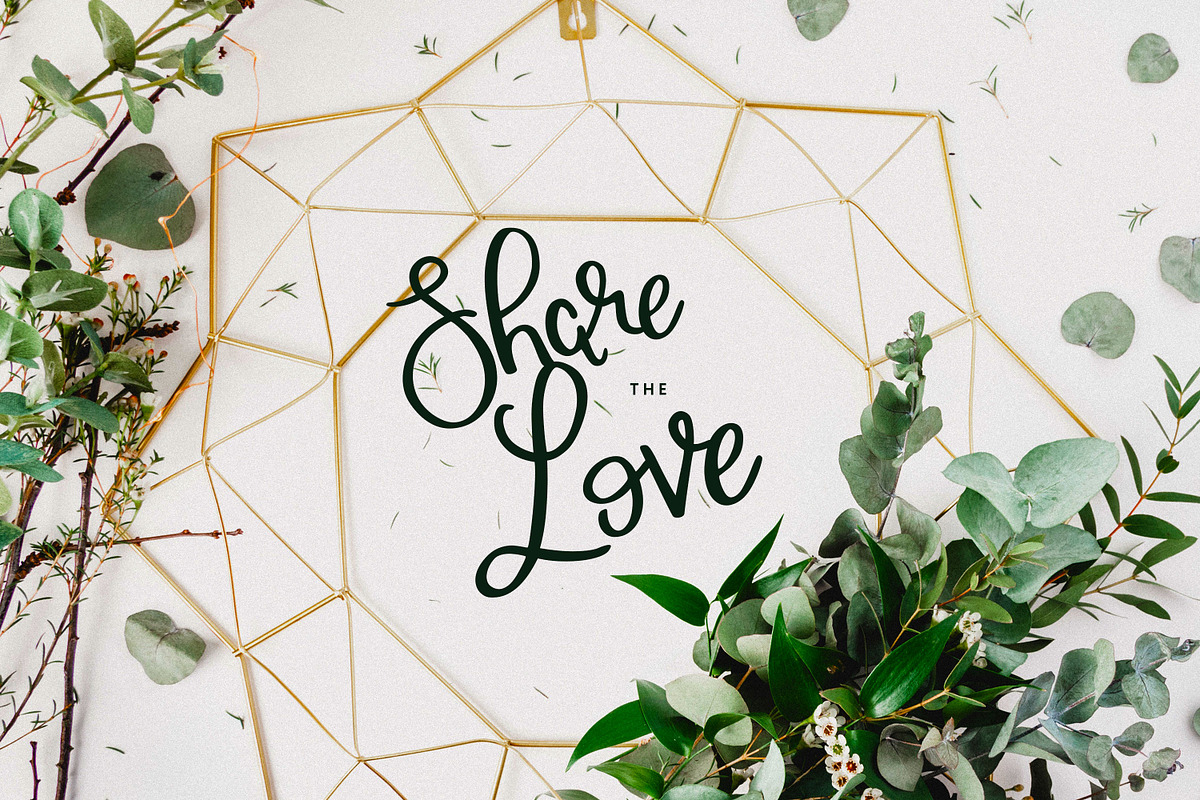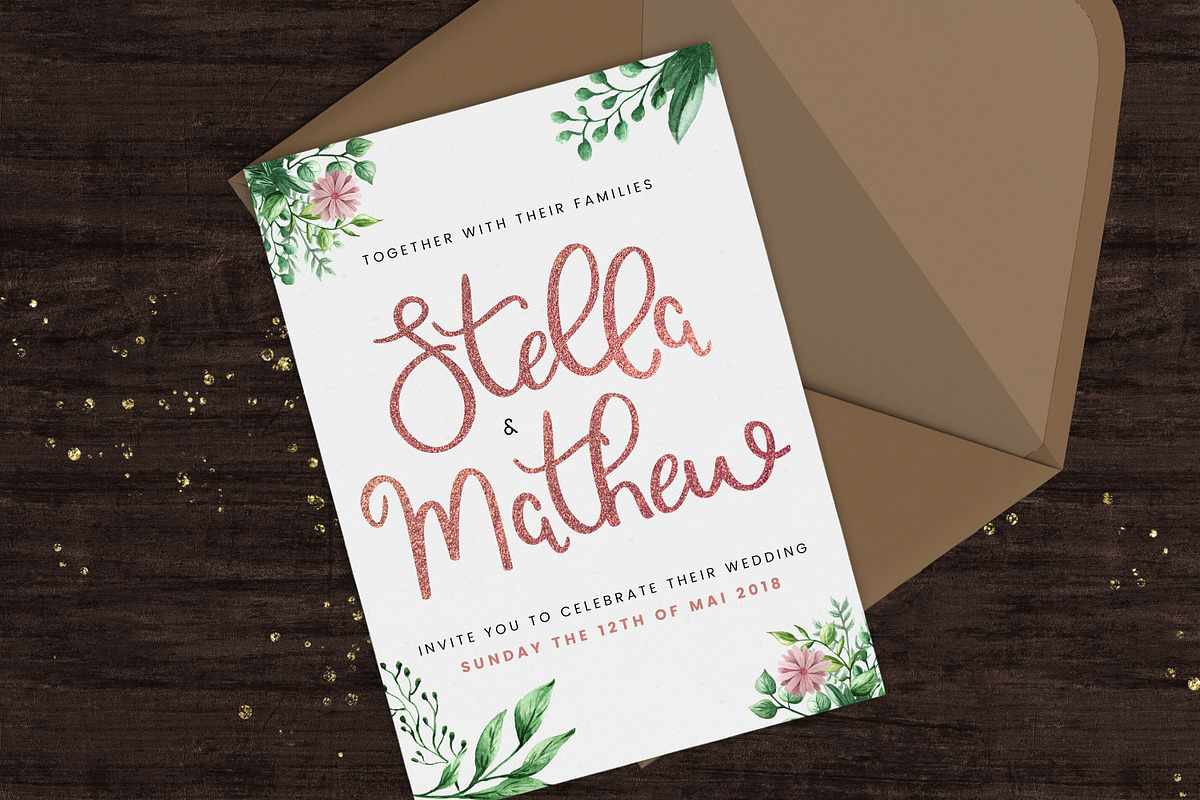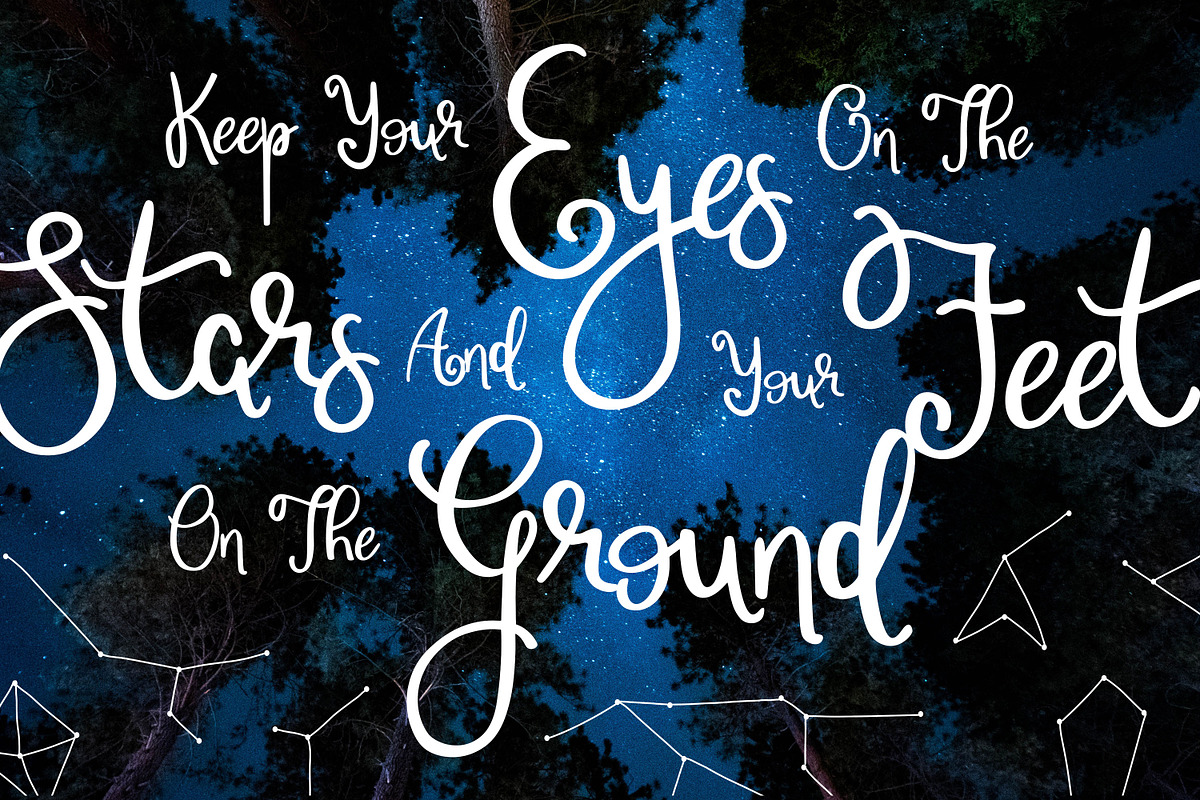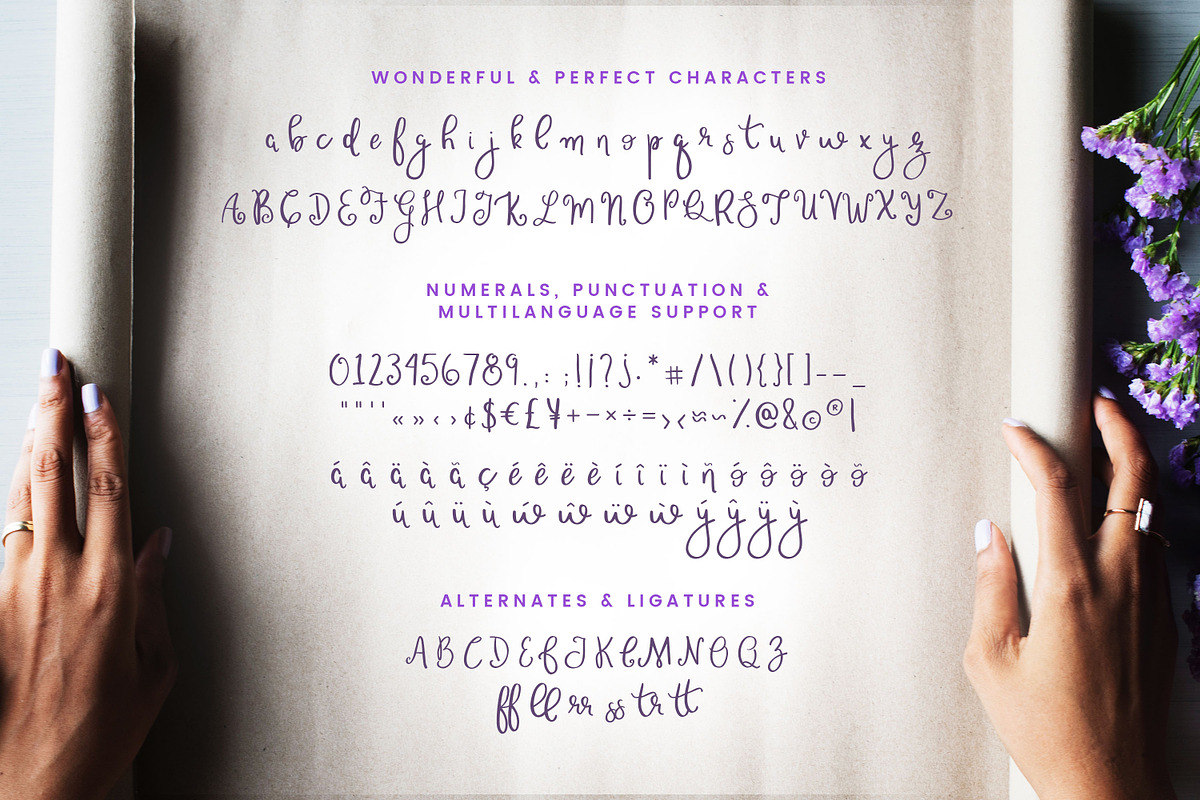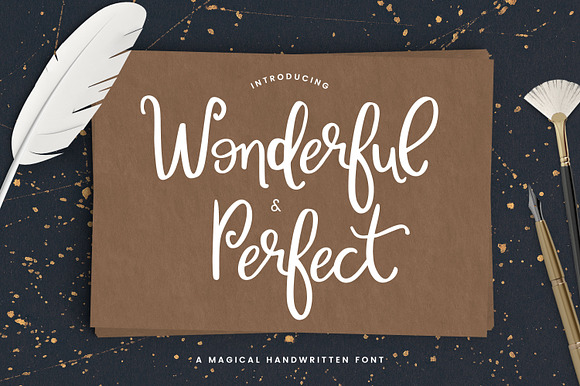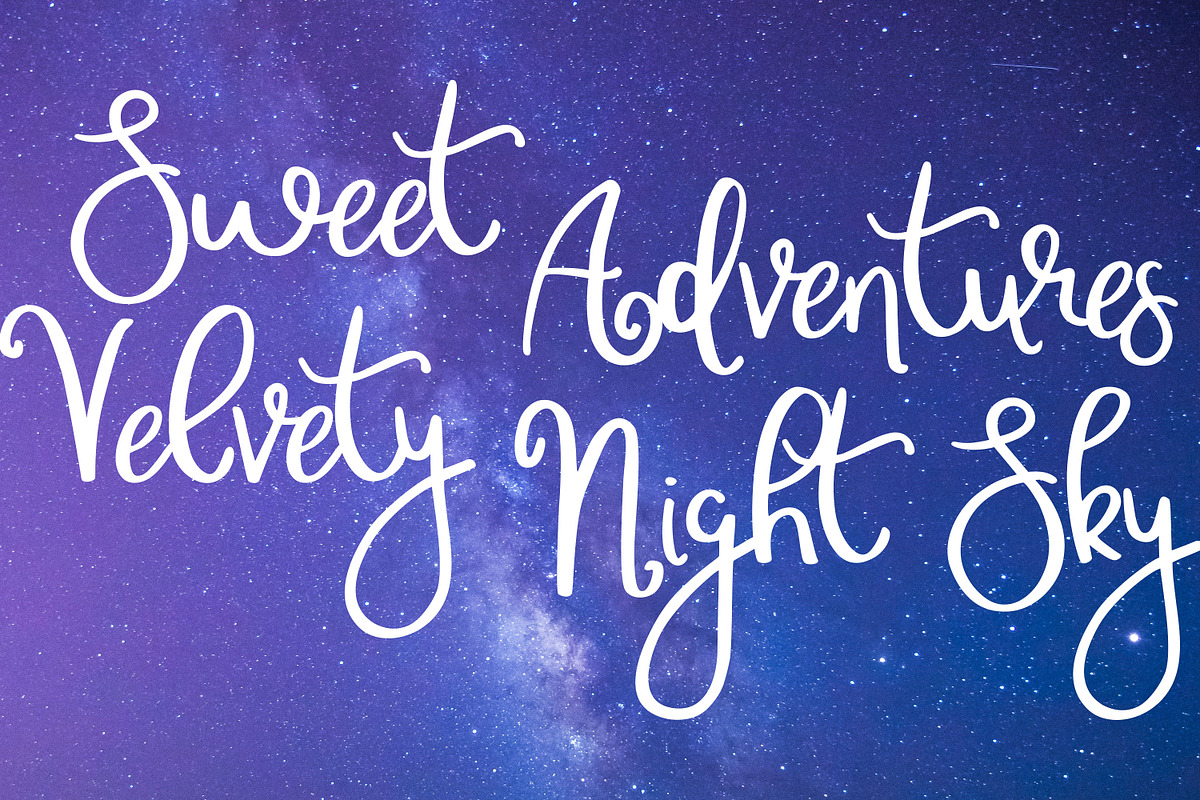
Wonderful & Perfect | A Script Font
Wonderful & Perfect is a whimsical, bouncy font for any of your design needs! A fun, quirky font that will add elegance to your work.
- Numerals, punctuation and multilanguage support
- Alternates and ligatures
Wonderful & Perfect | A Script Font by ChristineTeixeira fits naturally into Branding, posters, packaging, typography.